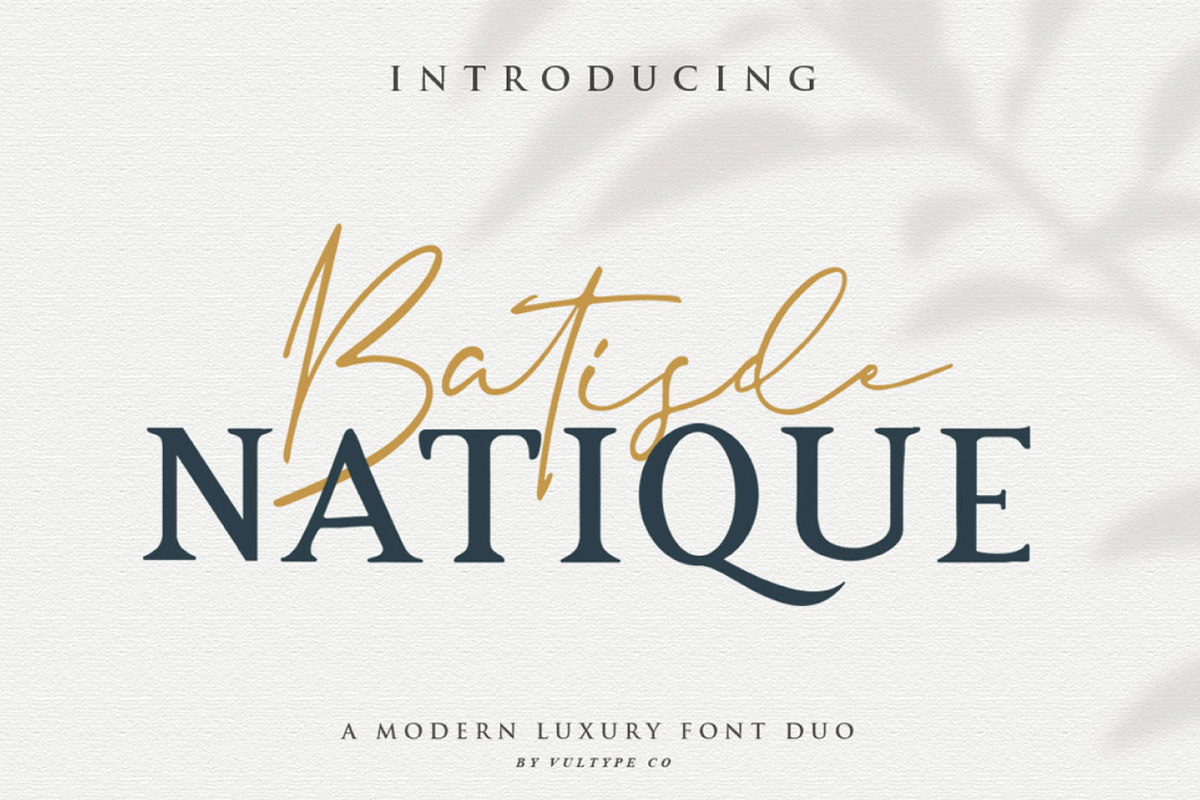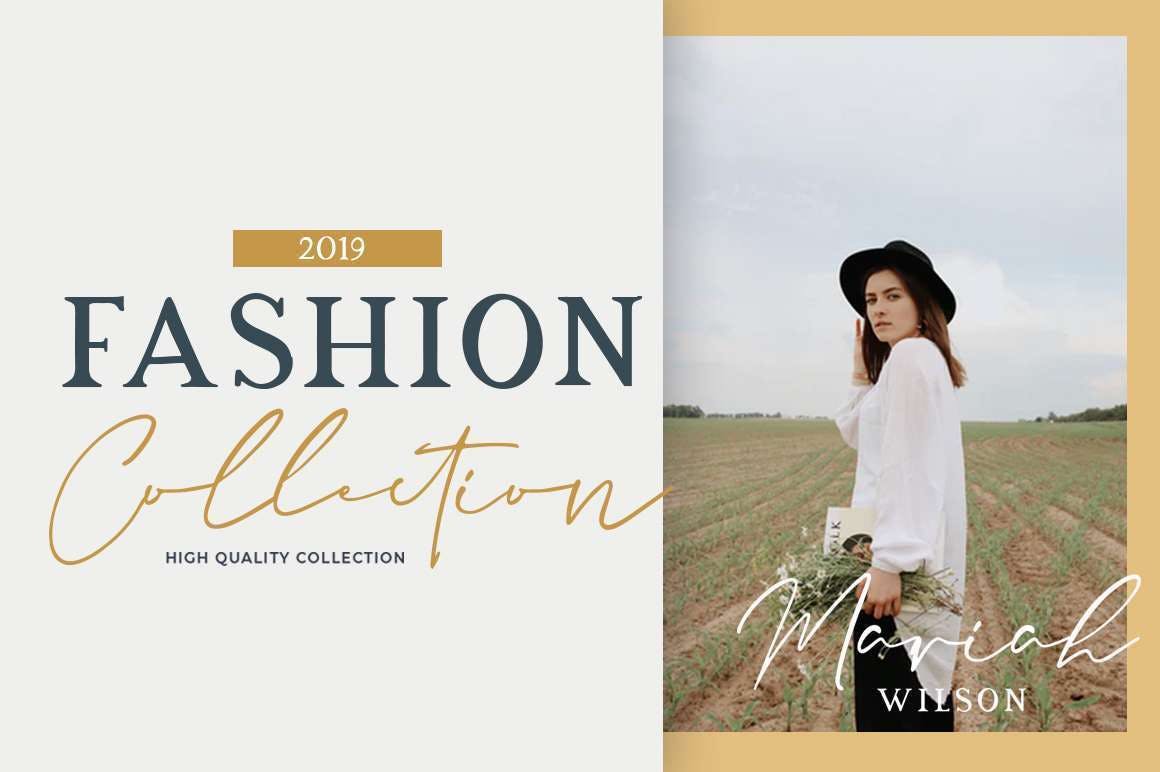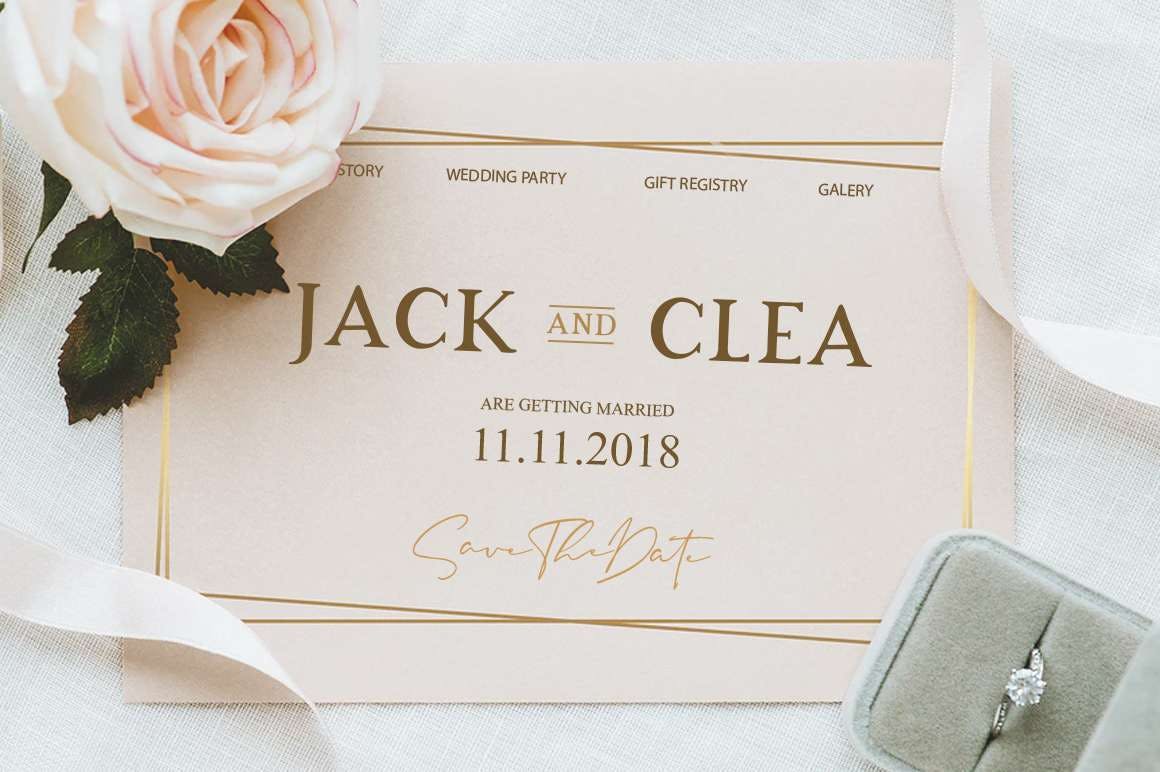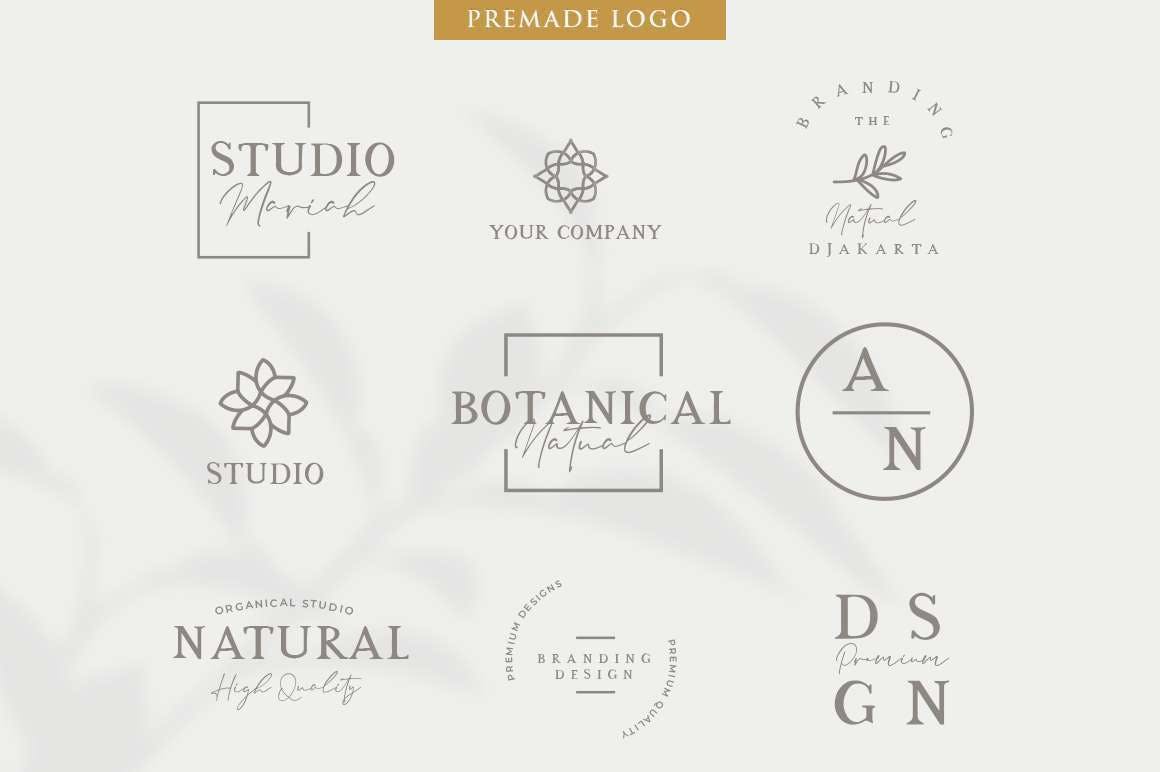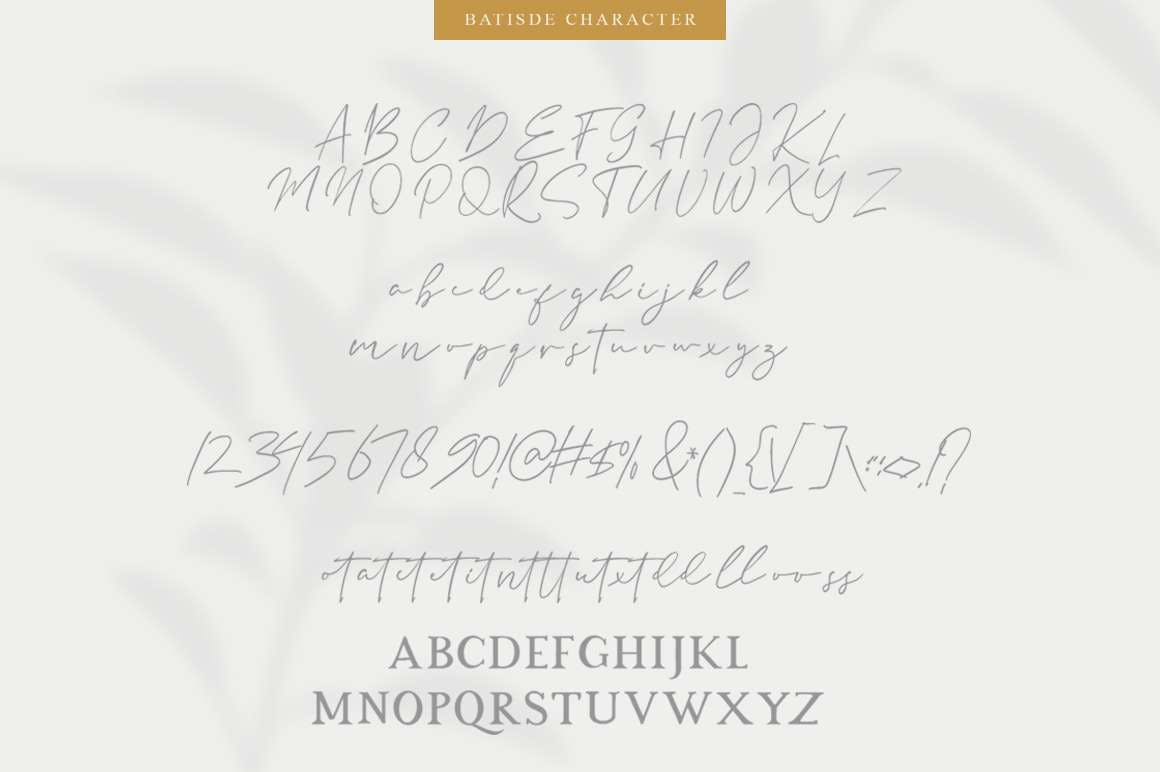
Free Batisde Signature Font
Free Batisde Signature Font is a minimalistic duo script font. Available for modern serif and beautiful signature font with ligatures and alternate. It will fit on your projects such as posters, packaging, and more. Also, this awesome font is very good to be presented on your logo brands. Coming with two format files which are OTF and TTF. However, this free font is only available the signature style with a personal use license. But, you can get more features by purchasing the premium version.